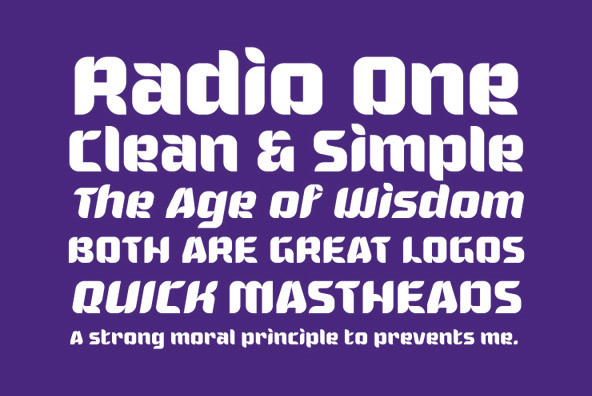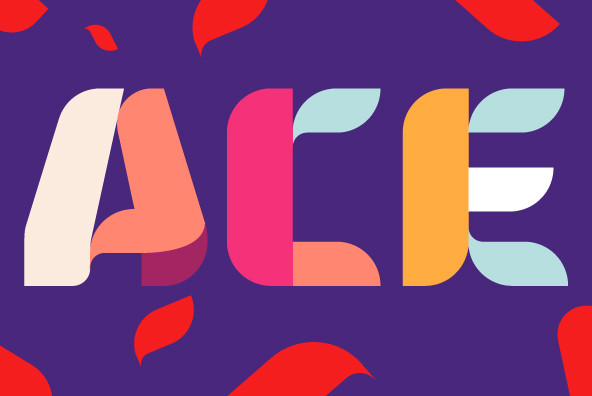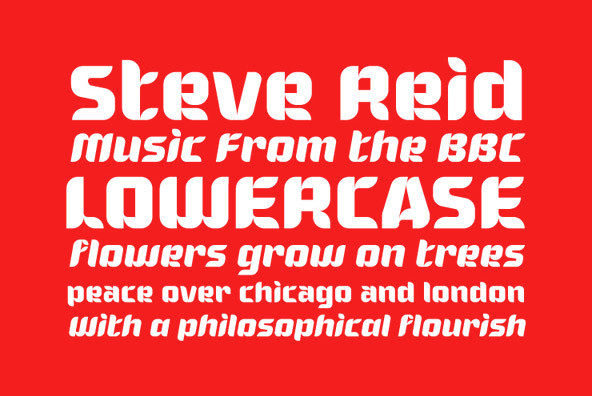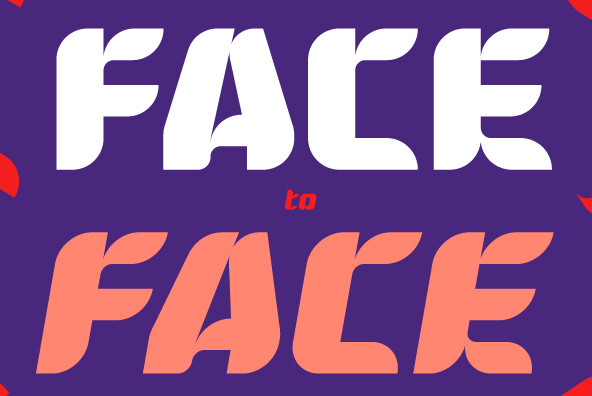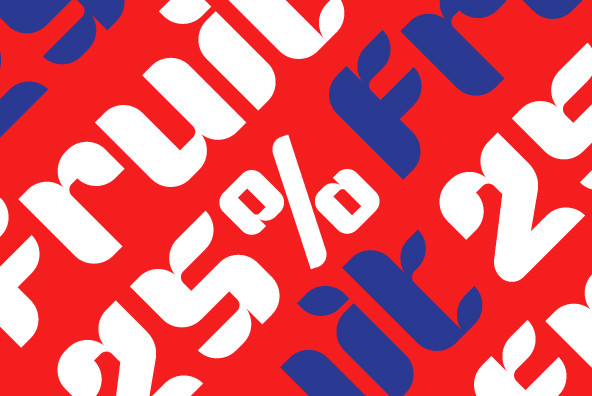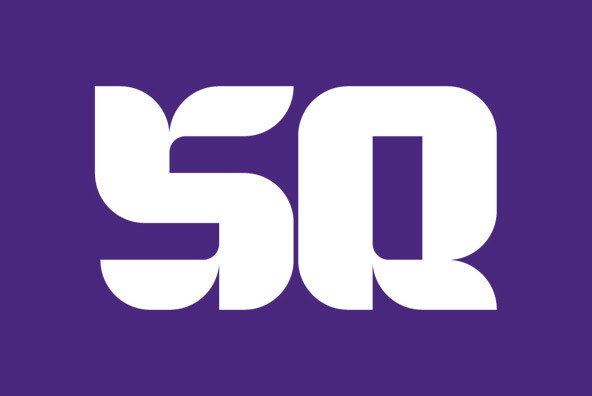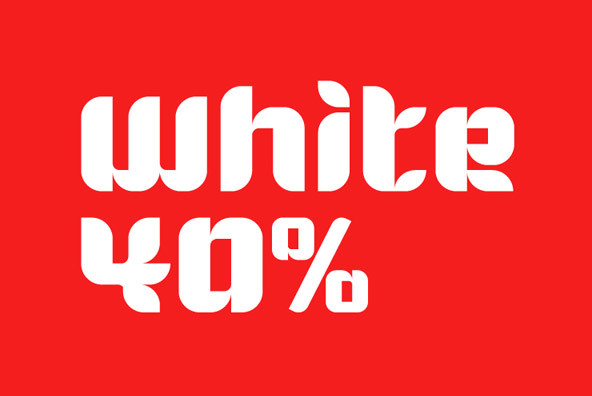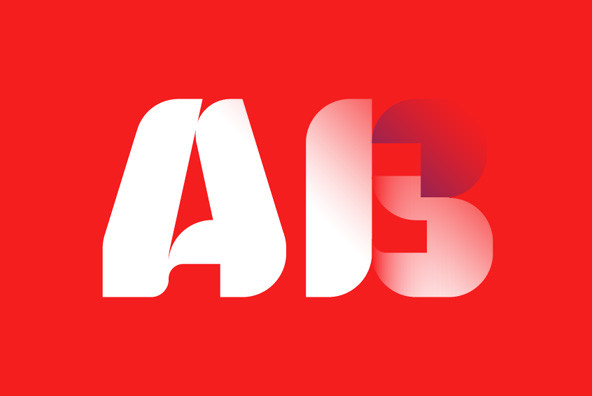
Antelope
Foundry: Sparky Type
Antelope is bulky, dexterous and technical. Included is an italic style to push this already bounding, muscular font 10 degrees faster.